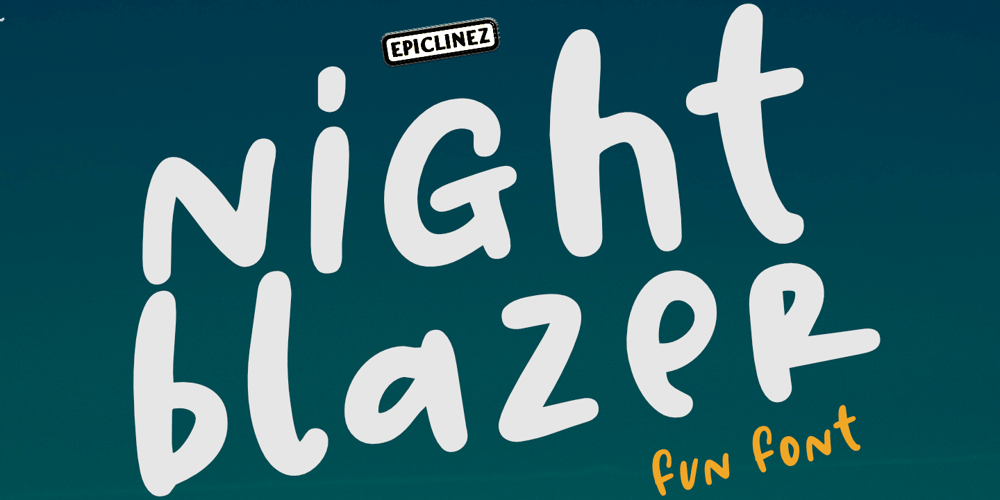
Night Blazer
Night Blazer font
Night Blazer Font Family was designed by Aldy Sidik and published by Epiclinez. Night Blazer contains 1 styles and family package options. Night Blazer is a cute and lovable handwritten font. It is suitable for your crafting projects, but also for apparels, quotes and so much more.